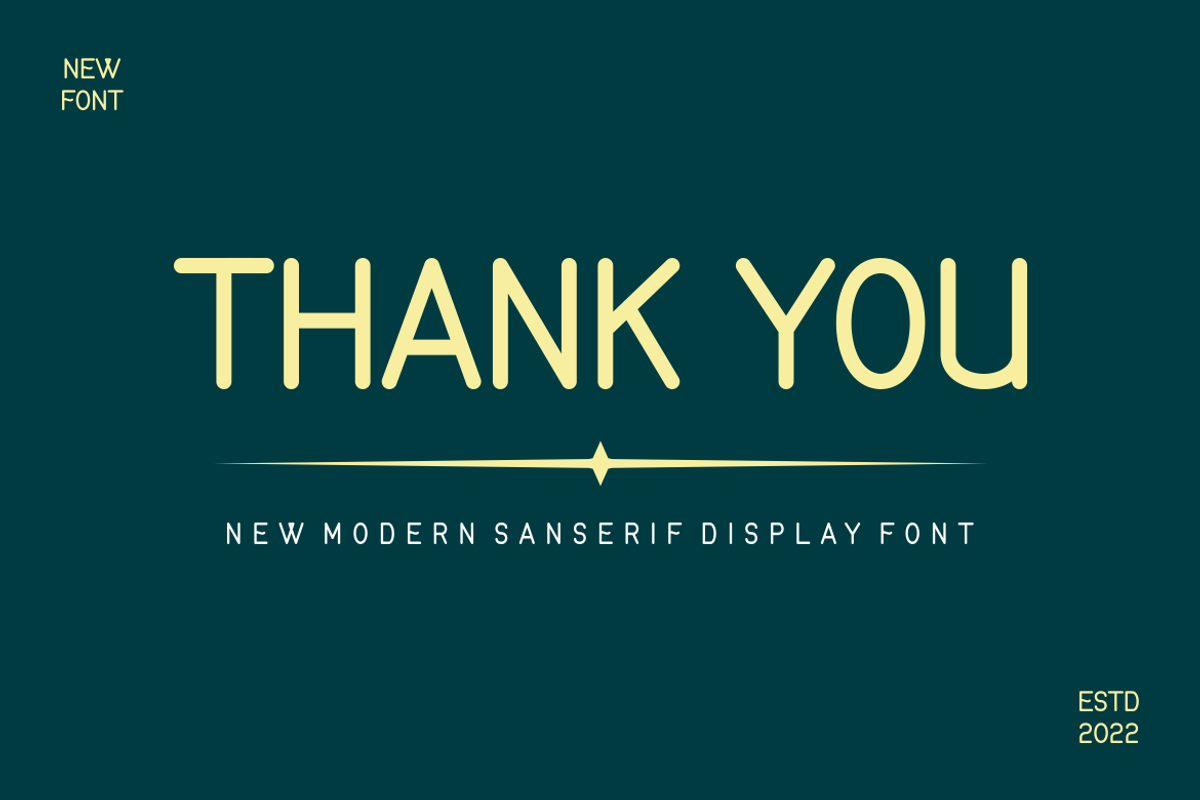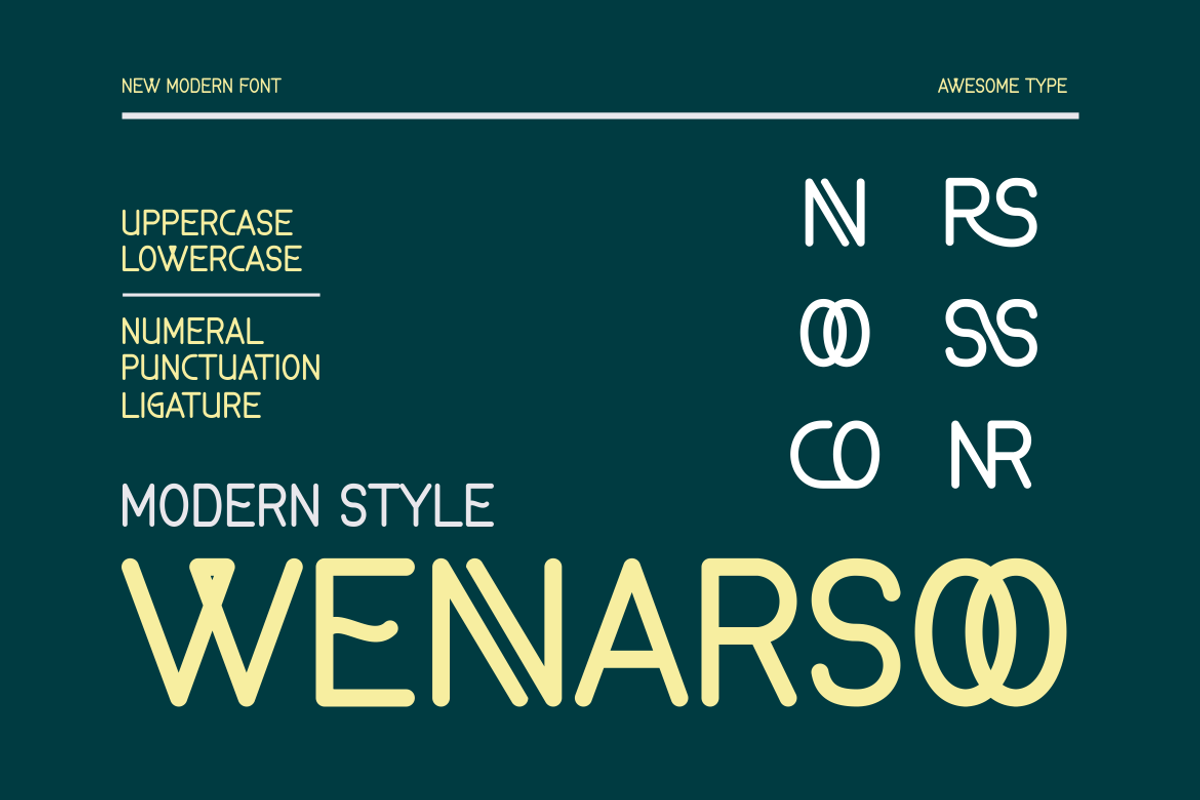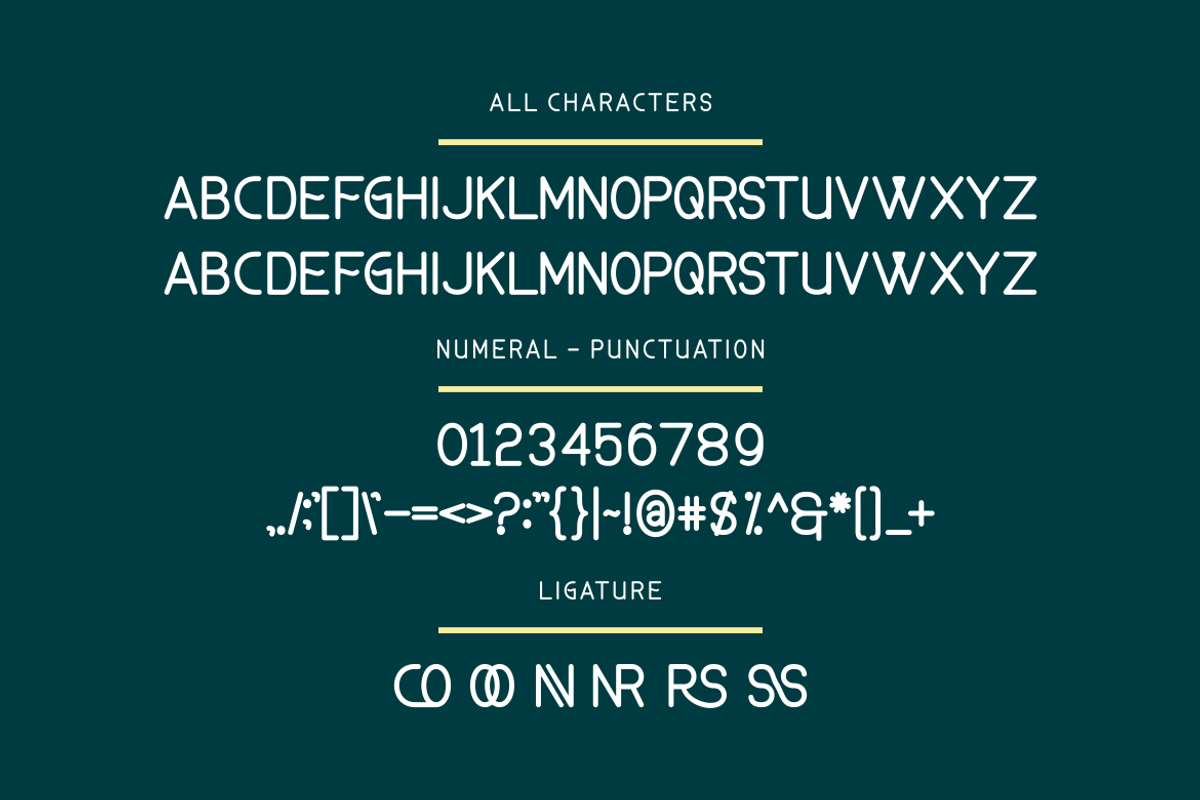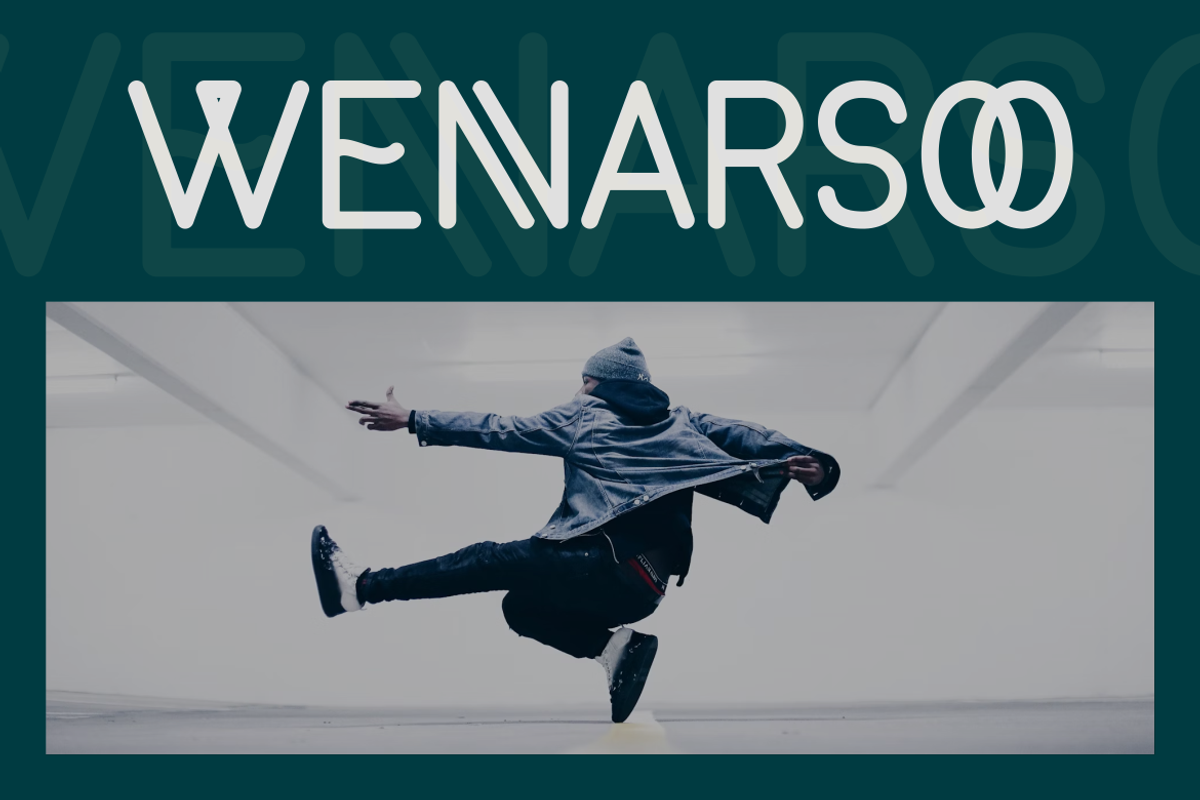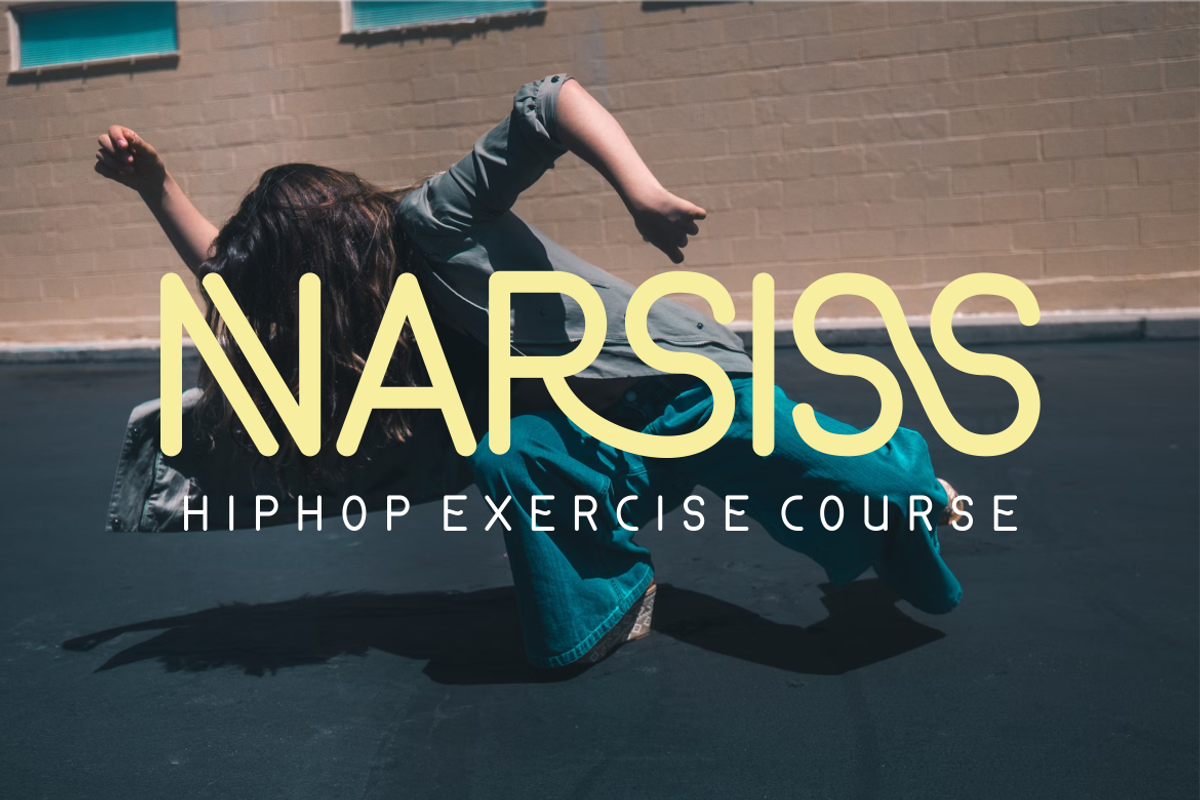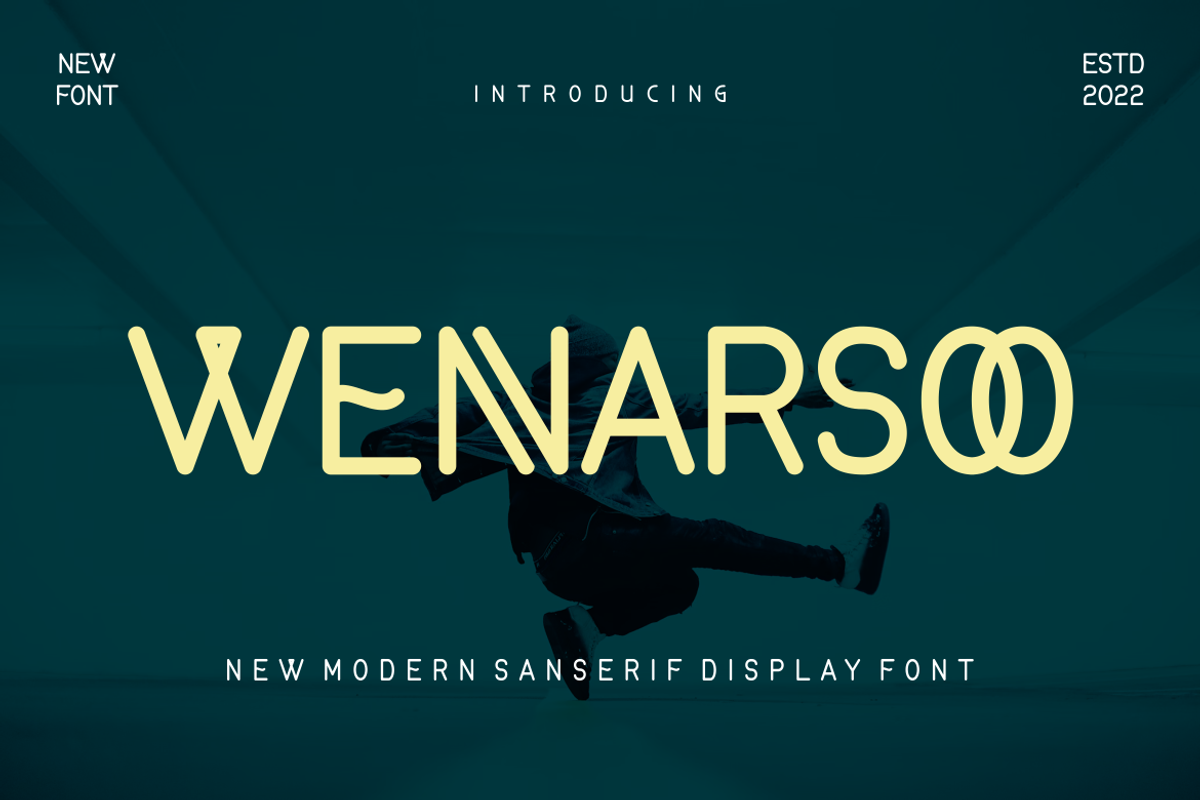
Wennarsoo Font
Introducing our new product Wennarsoo Font - Modern Font
Wennarsoo Font- Modern Font is a bold and authentic display font. The font is suitable for any branding project like logo, t-shirt printing, esport, and many more. outstanding in a wide range of contexts.
- Wennarsoo Uppercase
- Wennarsoo Ligature